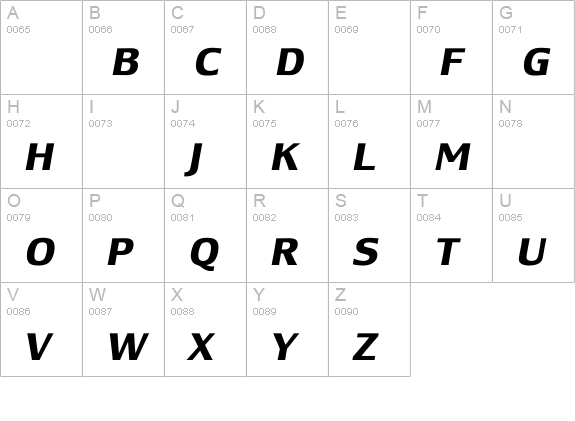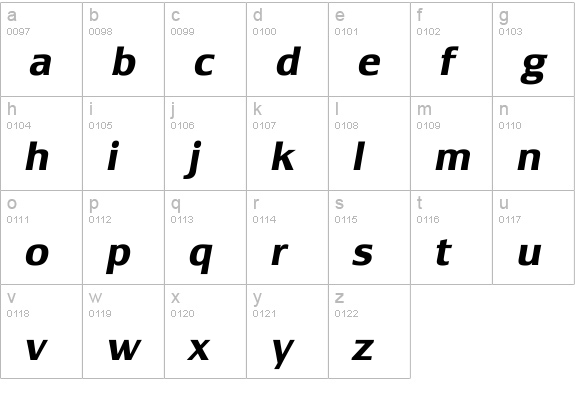
LesmoreBoldItalic Font Details
LesmoreBoldItalic is a visually striking and elegantly designed font that exudes confidence and sophistication. With its bold strokes and italicized slant, this font effortlessly commands attention and adds a touch of flair to any project. The LesmoreBoldItalic font is perfect for making a bold statement in headlines, logos, and branding materials. Its unique combination of boldness and italics creates a sense of dynamism and movement, making it an excellent choice for designs that need to convey energy and excitement. This font also offers unparalleled versatility, as it seamlessly transitions from formal to casual settings. Whether you're designing a professional business presentation or a trendy social media graphic, LesmoreBoldItalic will effortlessly adapt to your needs. One of the greatest advantages of LesmoreBoldItalic is that it is freely available for download at FontsMarket.com. This means that you can access this stunning font without any cost, making it an excellent choice for designers on a budget. The ease of access and the high-quality design make LesmoreBoldItalic a must-have font for both professional designers and hobbyists alike. So, if you're looking to make a bold statement with your design, look no further than LesmoreBoldItalic. With its striking boldness, elegant italics, and free availability at FontsMarket.com, this font is sure to elevate your projects to new heights.